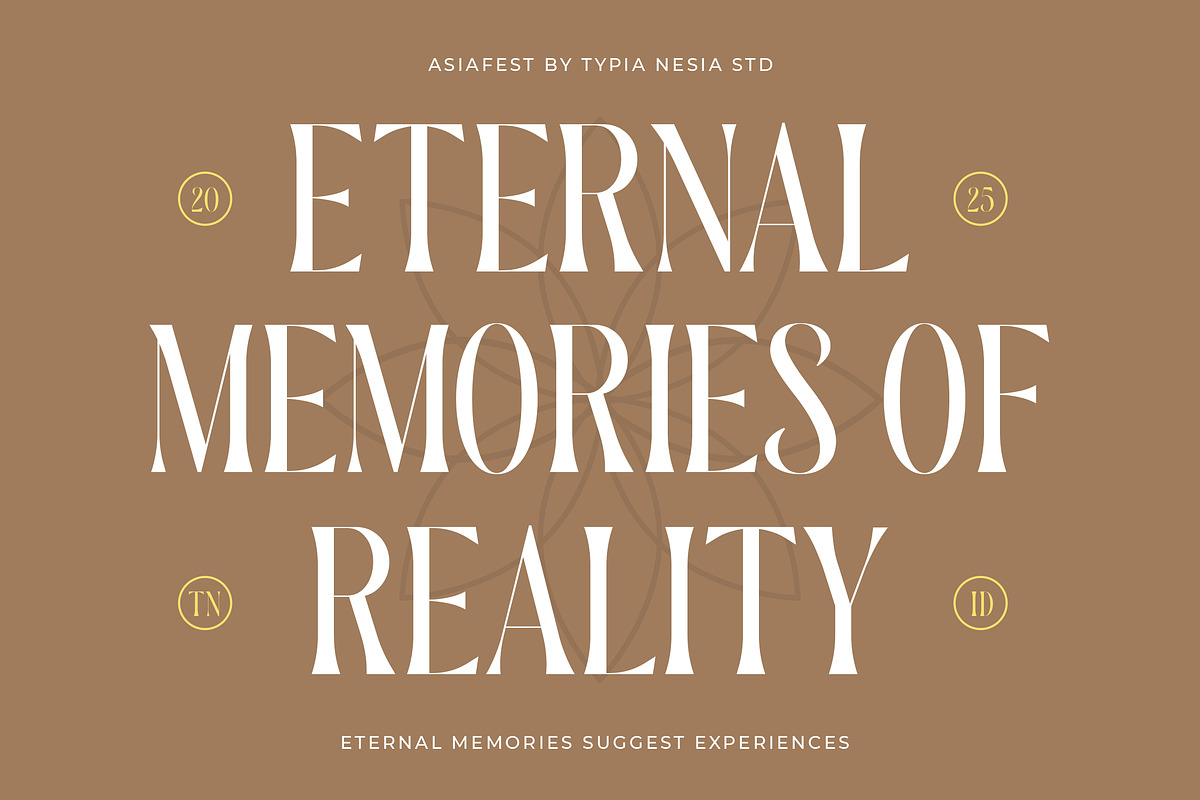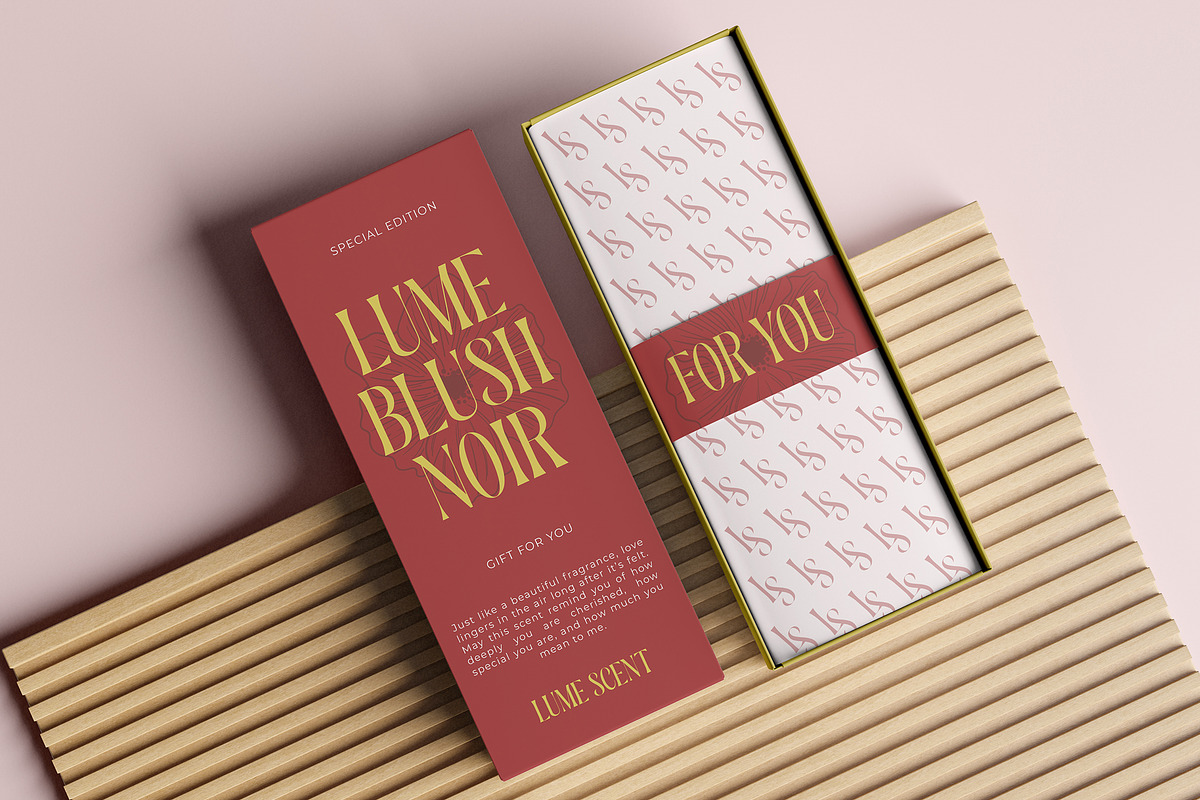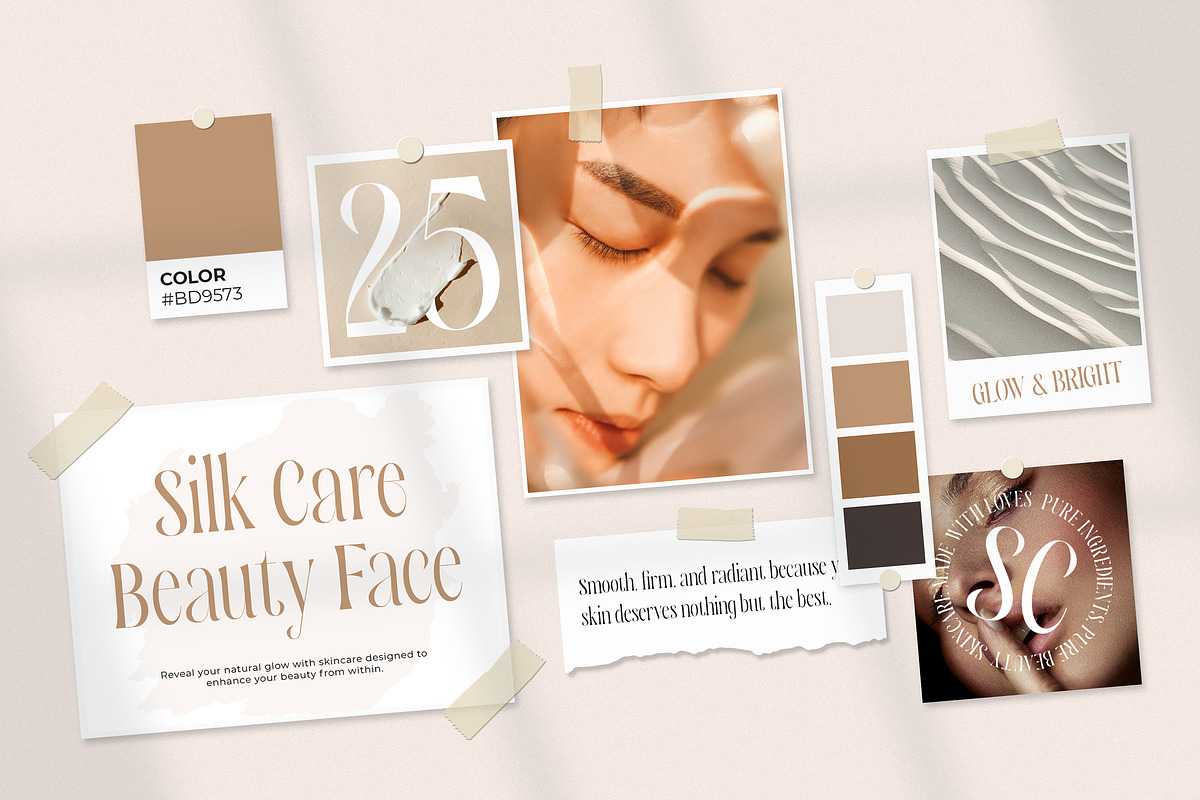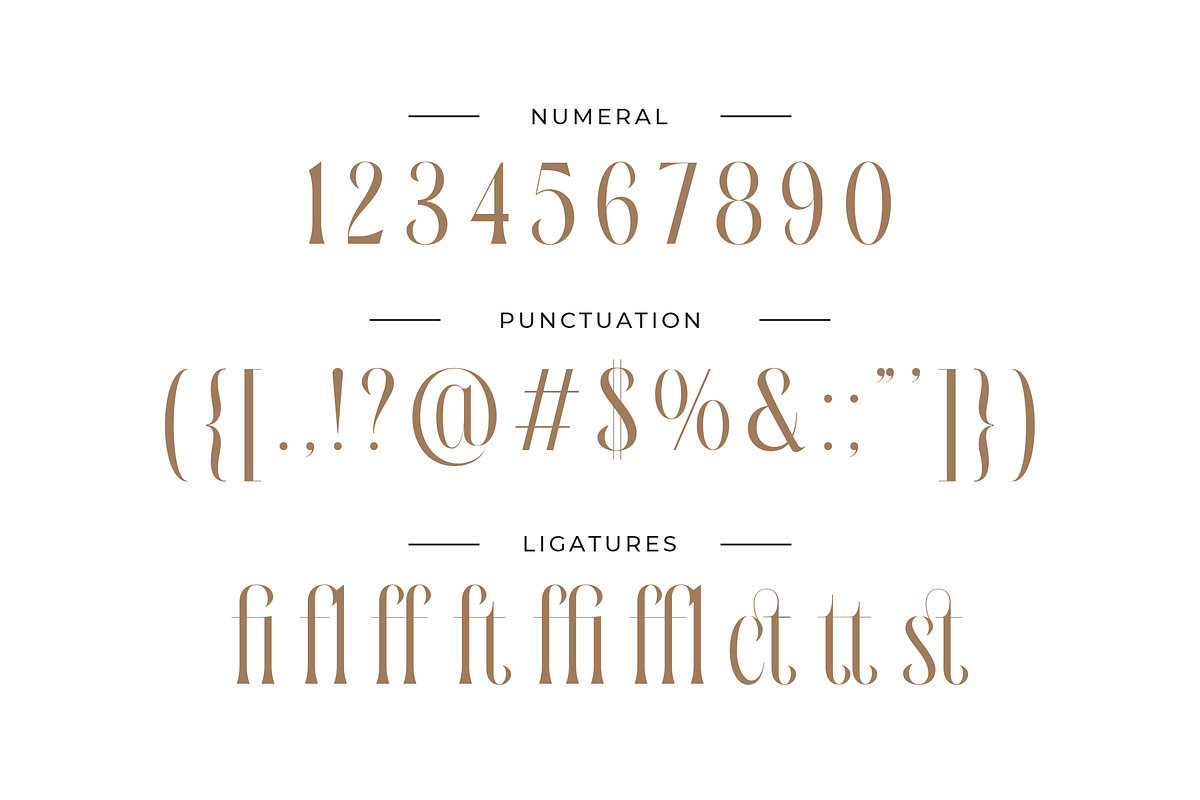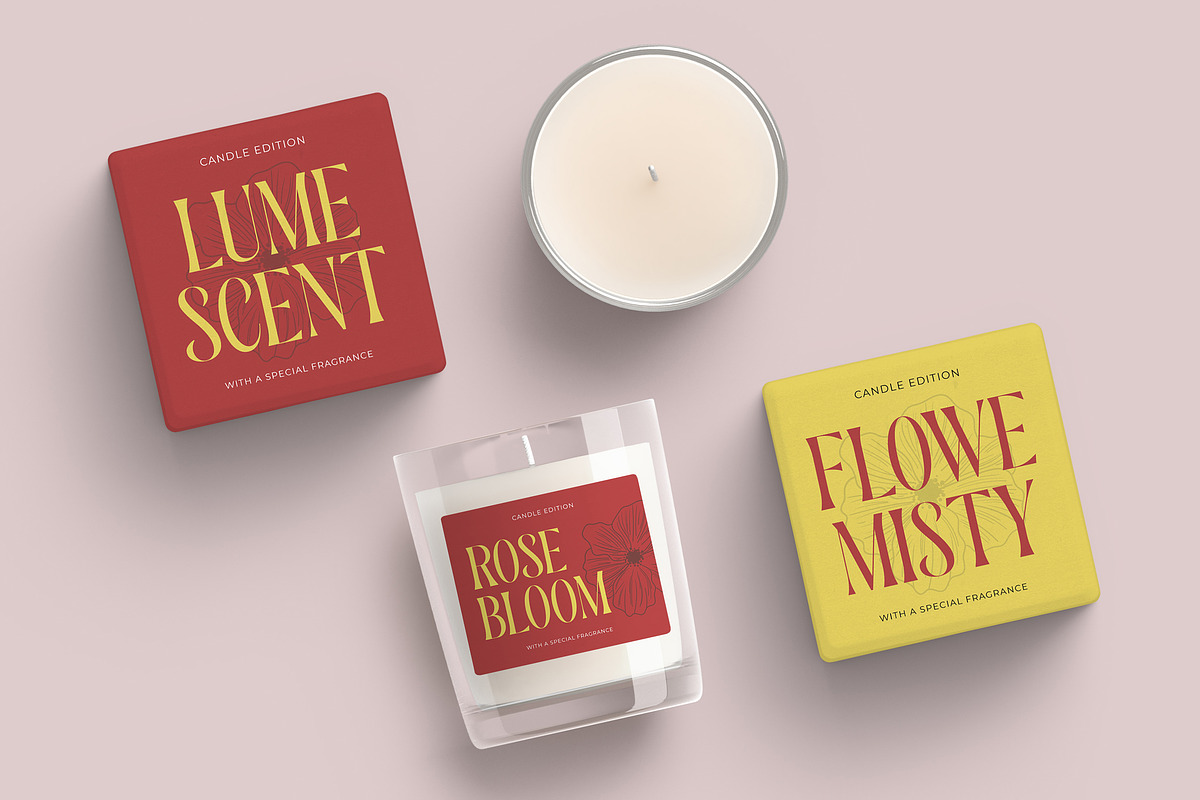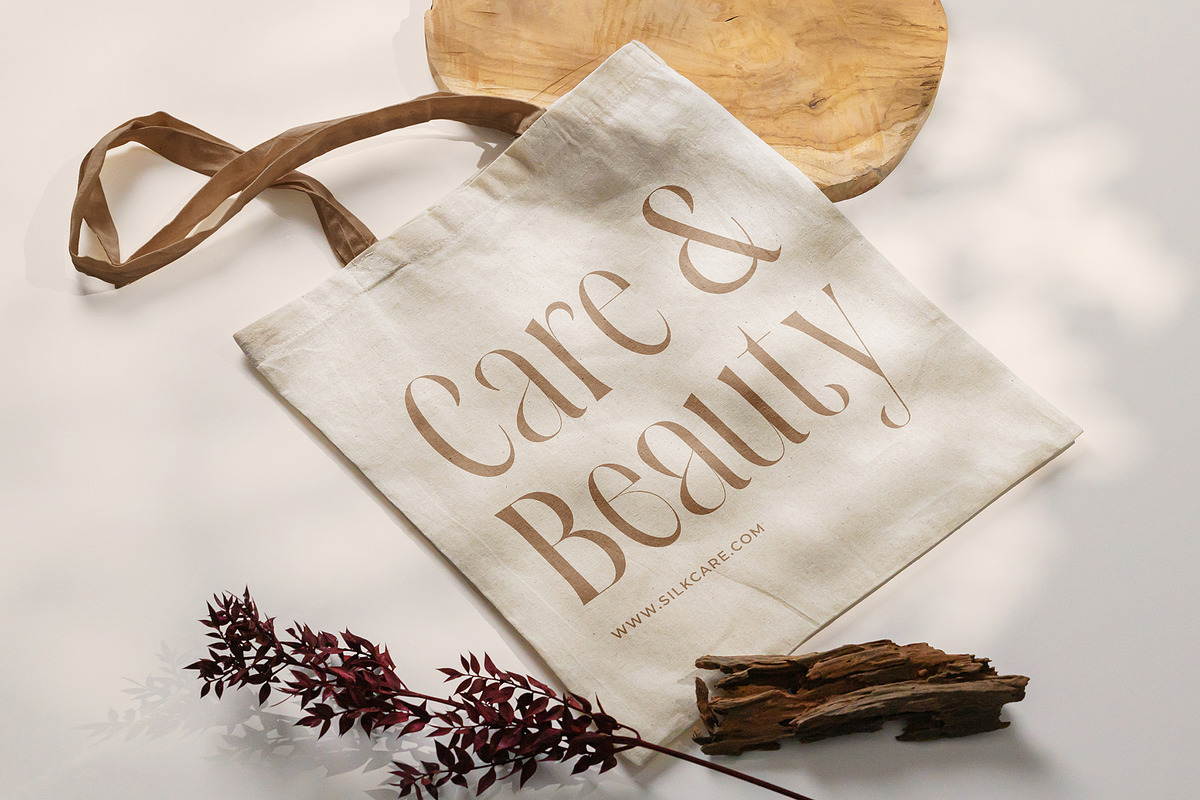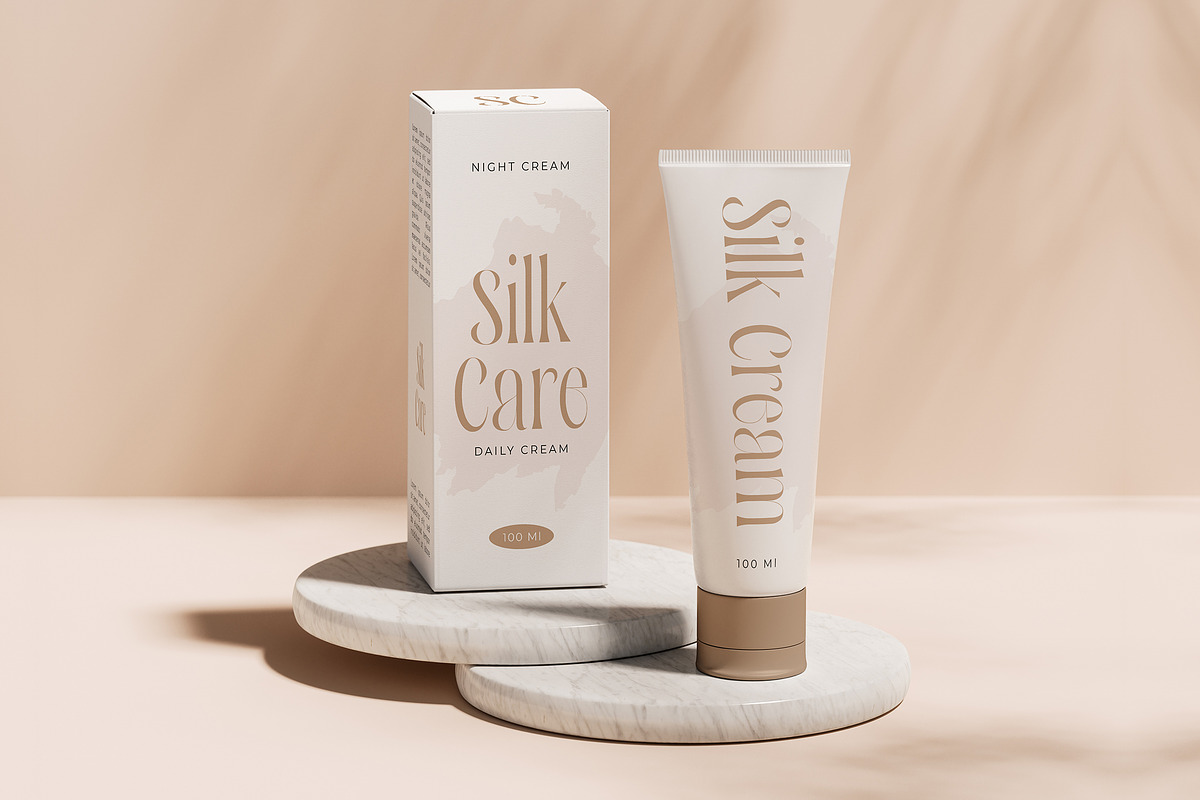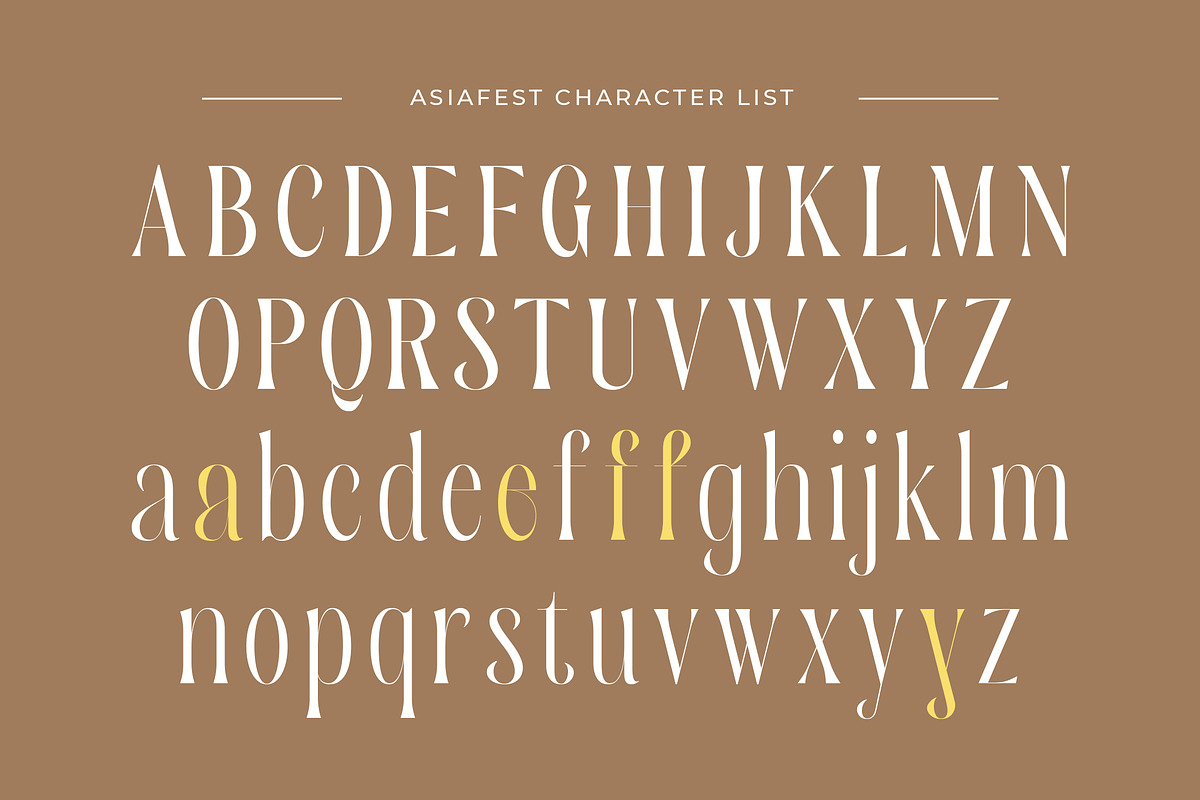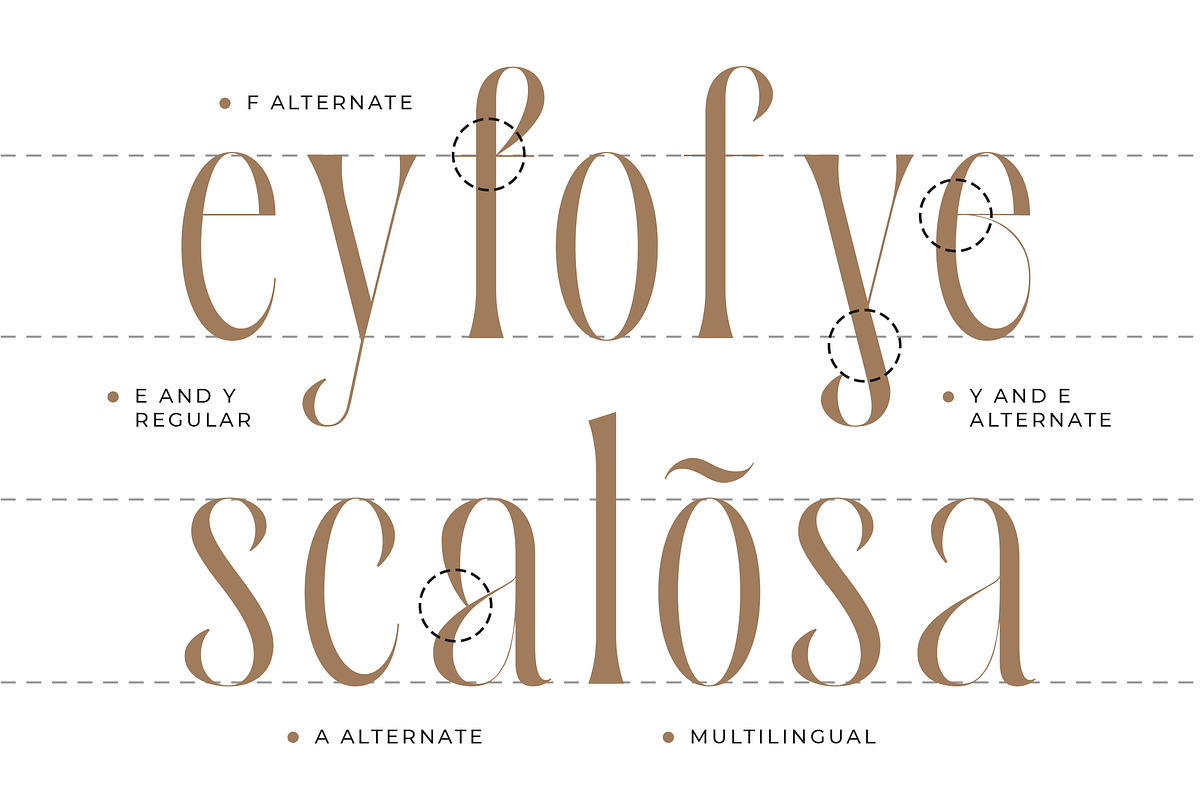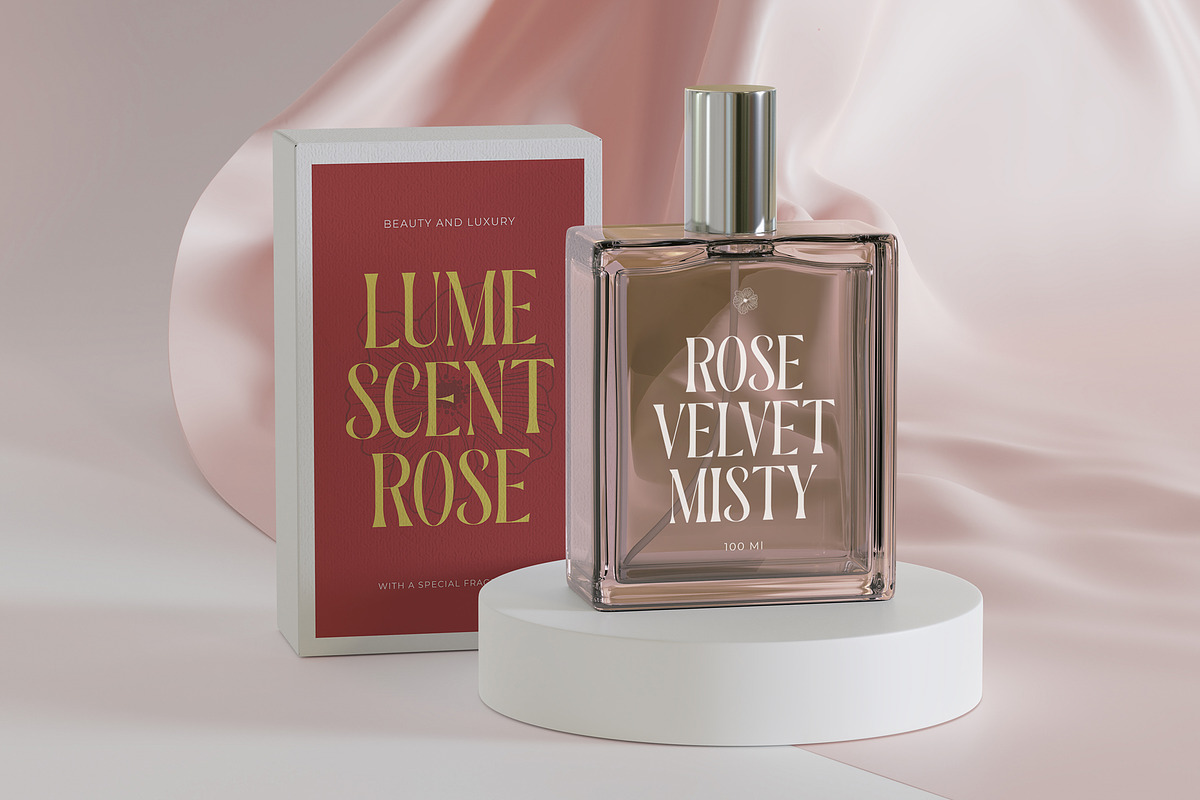
Asiafest - A Unique & Stylish Serif
Asiafest - A Unique & Stylish Serif Font - Beauty Elegant Luxury Display Font
Asiafest is a unique and stylish serif font that blends classic elegance with a beauty modern flair. Designed with refined curves and graceful proportions, this display typeface offers an elevated aesthetic perfect for luxurious visual storytelling, such as branding, fashion magazines, high-end packaging, logos, wedding invitations, editorial layouts, social media graphics, skincare product, advertising campaign, and everything that calls for a touch of elegance and class. Comes with uppercase and lowercase letters, numerals, punctuation, ligatures, alternates, and multilingual support. Every letterform is carefully crafted to provide versatility, visual harmony, and a premium feel for your design work. Crafted for designers, art directors, and creatives seeking a refined yet unique serif display font to bring luxury and high-fashion vibes into their projects. Asiafest delivers both beauty and performance in every letter.